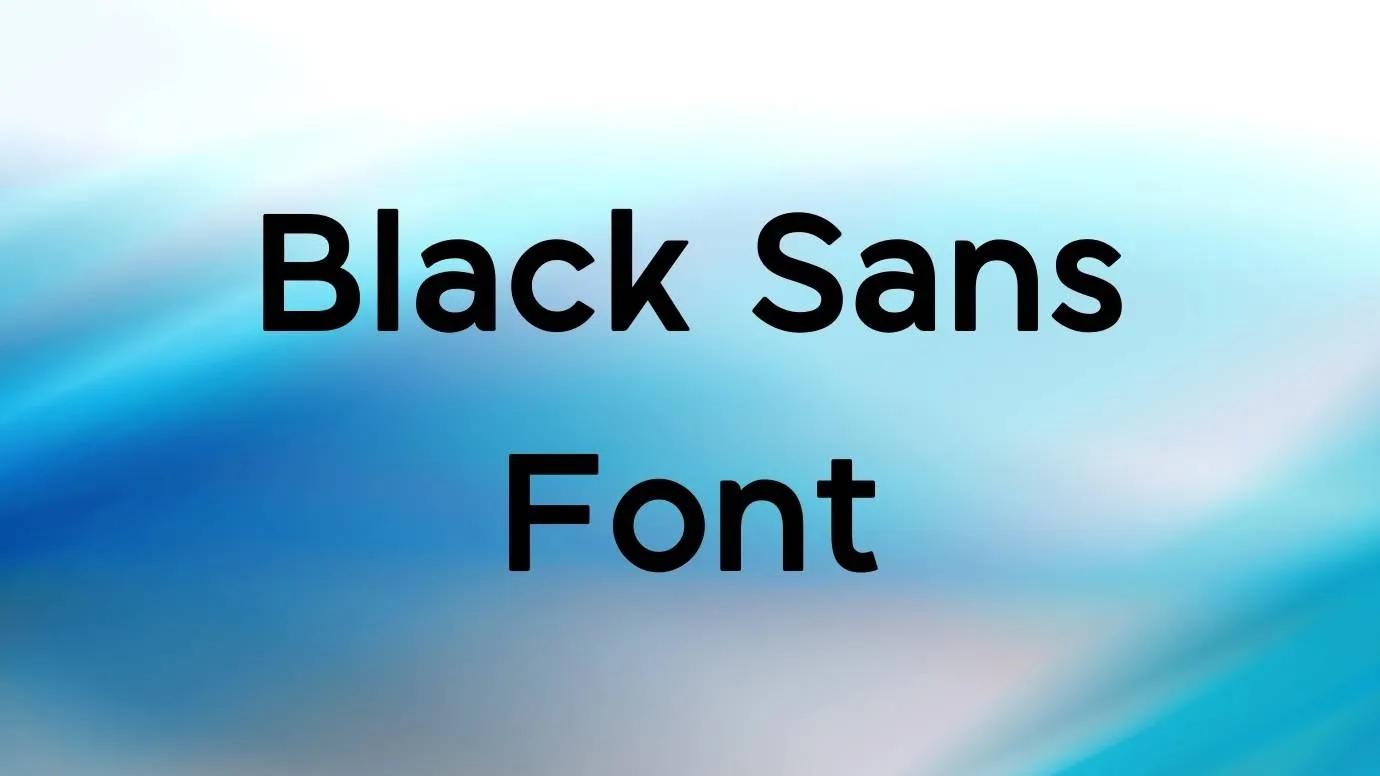
Black Sans Font Family has attractive and smooth look characters. It was designed by multiple designers known as Fraser Tebbutt and Roseanne Lee. This amazing texture is also suitable for use in bold title design purposes.
Black Sans Font